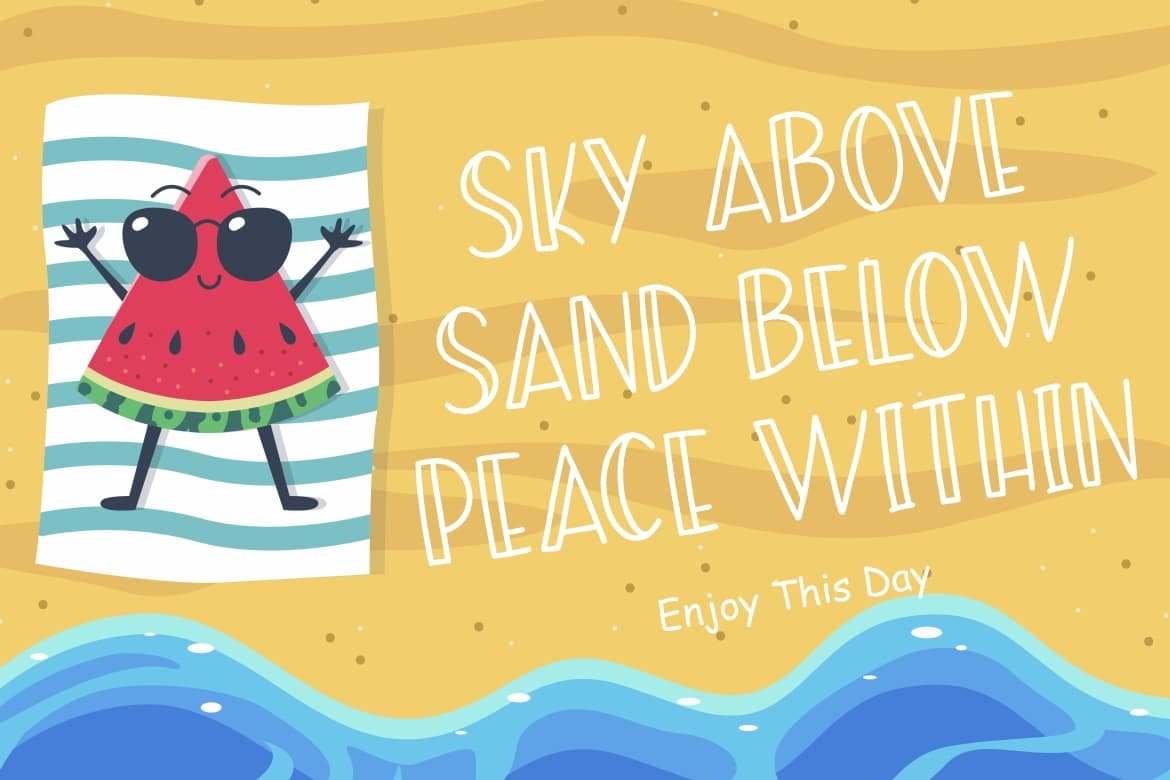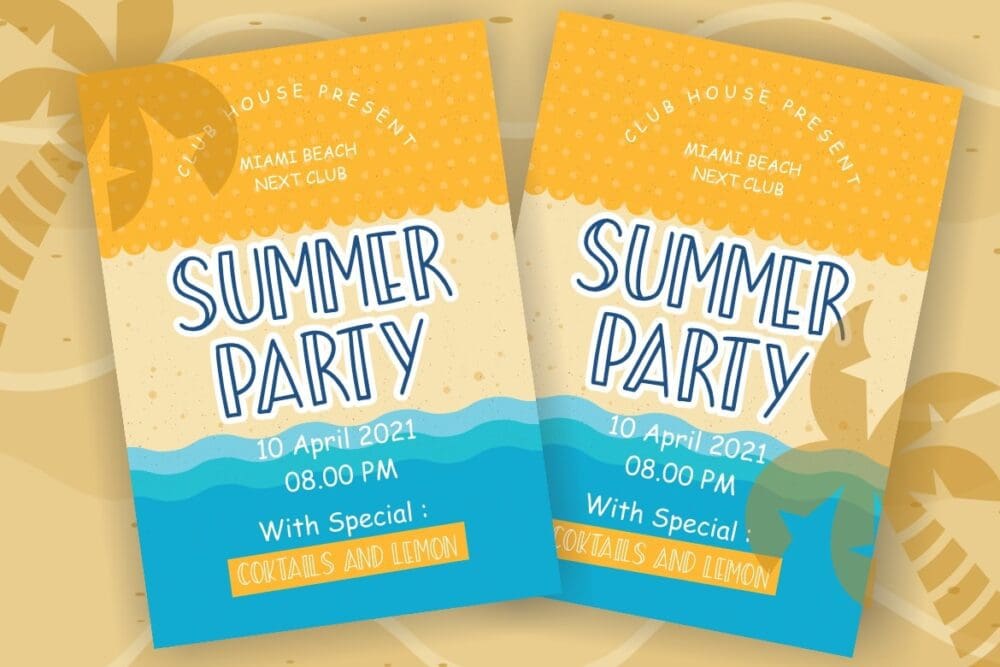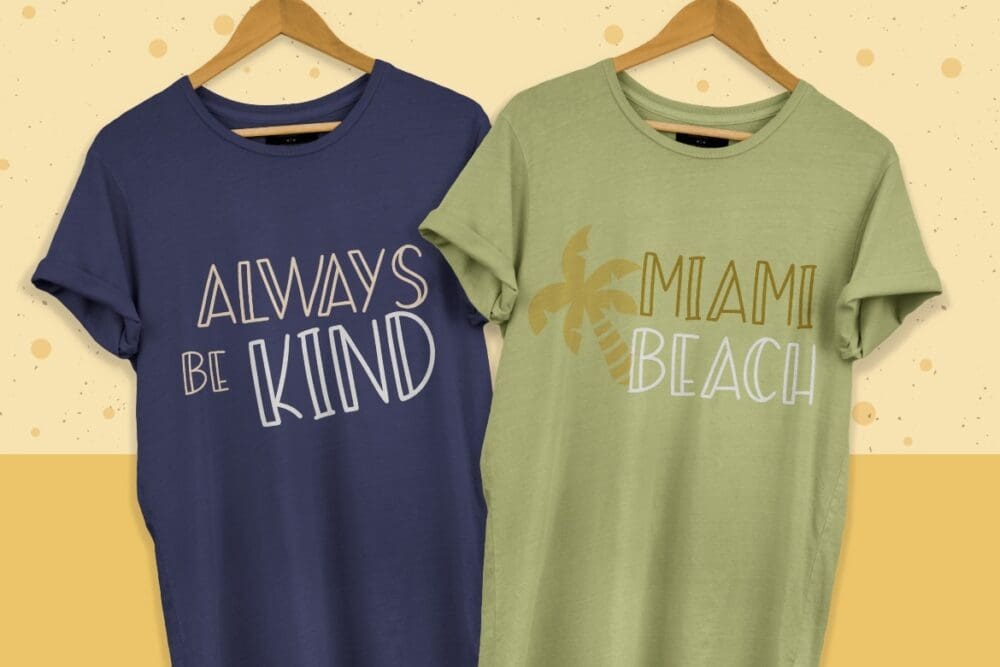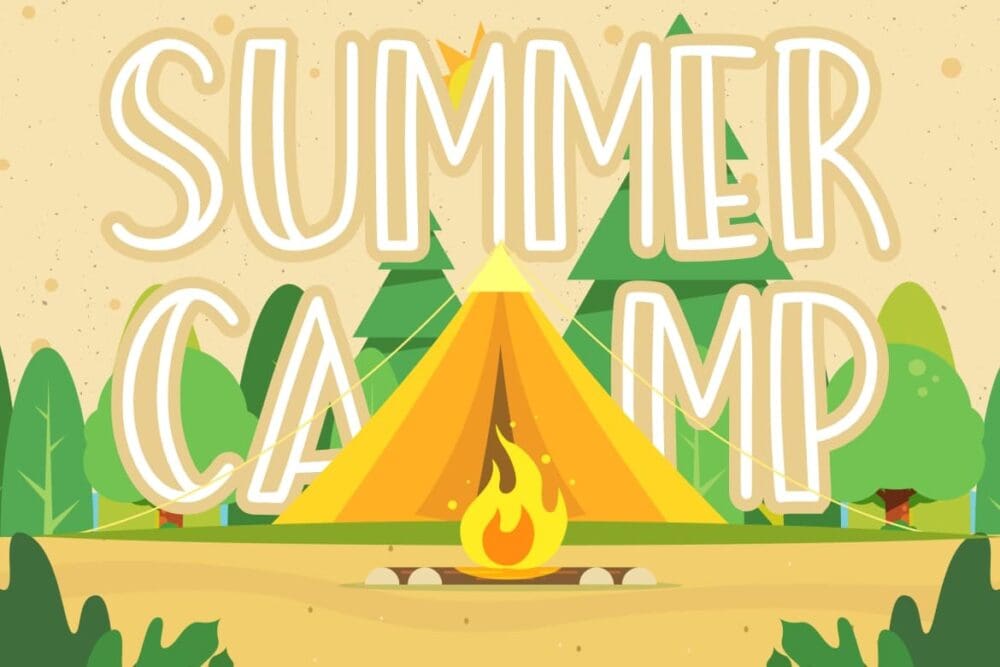
Summer Beach Display Font
Summer Beach is sunny Display Font with warm and fun which suitable to use for children related occasion. Summer Beach is perfect for branding projects, logos, wedding designs, advertisements, stationery, and any projects that need handwriting taste.